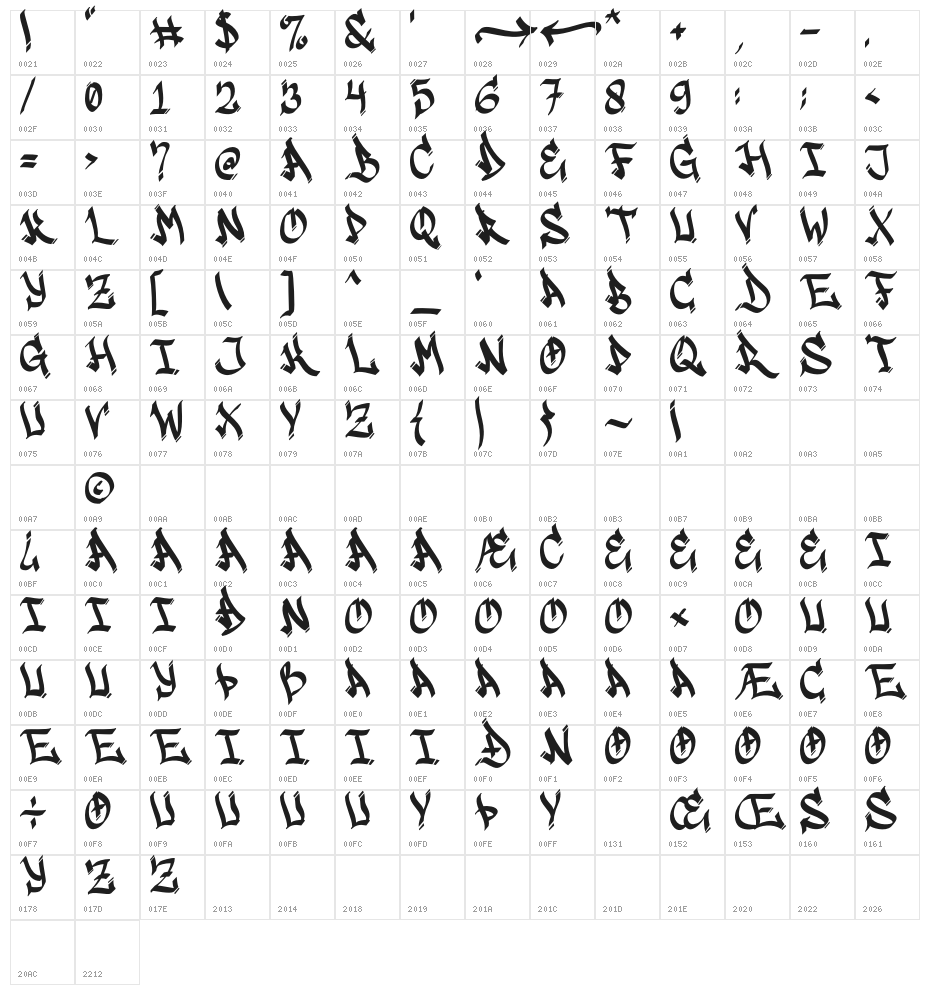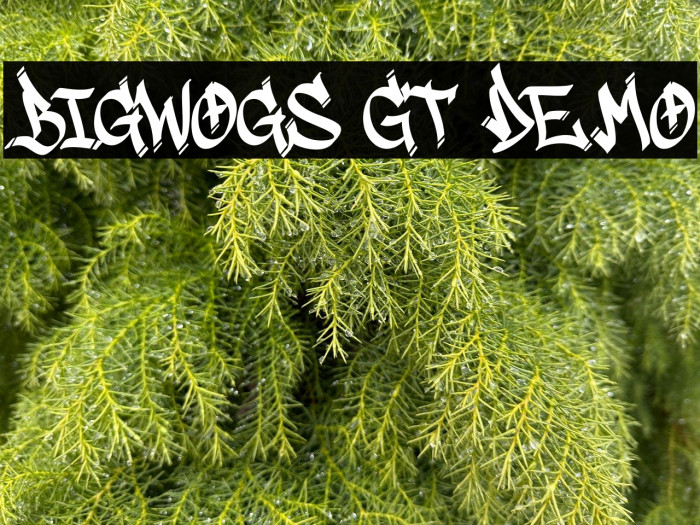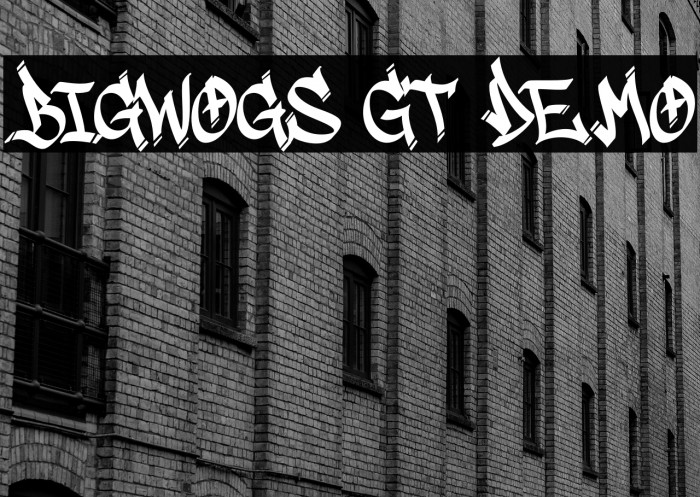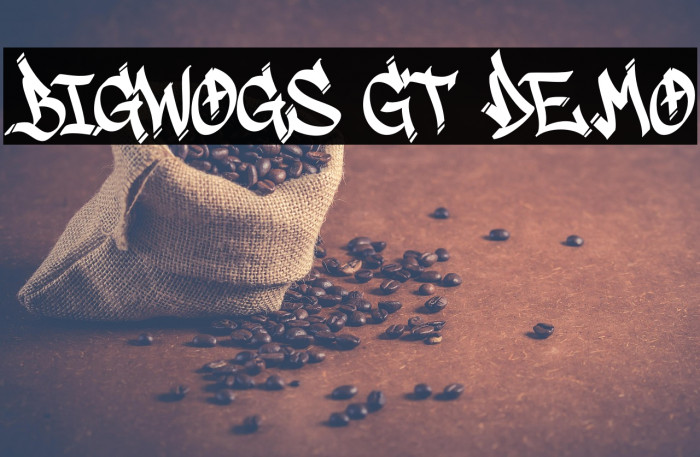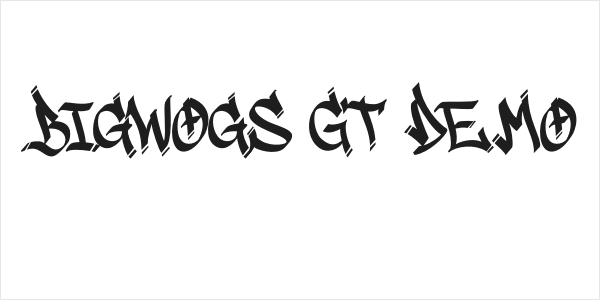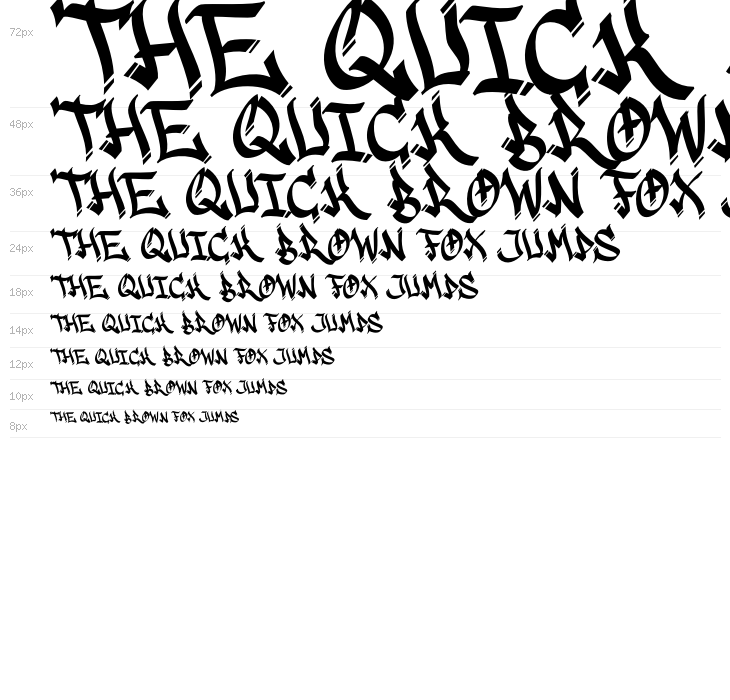
Bigwogs GT Demo Font
Bigwogs GT Demo Description
This font features a bold and dynamic style with sharp, angular edges and a graffiti-like appearance. The characters are highly stylized, with exaggerated curves and points that give them a sense of movement and energy. The uppercase and lowercase letters maintain a consistent design, creating a cohesive look across the alphabet. Numbers and special characters are equally bold and expressive, making them stand out. The font's unique style is reminiscent of street art, with a modern and edgy feel that captures attention.
| Overall Style | Modern, Edgy |
| Proposed Projects | Ideal for urban-themed designs, streetwear branding, music album covers, and event posters. |